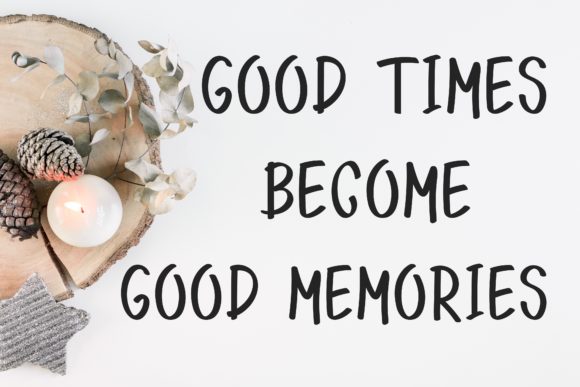
About Magic Winter Font
Magic Winter is a charming and versatile handwritten font that adds a touch of magic to any design project. With its lovely appearance, it can elevate a wide range of creative ideas and make them truly special. Here are some ways to use Magic Winter to create spectacular designs:
1. Holiday Greeting Cards: Design beautiful and heartfelt holiday greeting cards with Magic Winter to spread the joy of the season.
2. Wedding Invitations: Create romantic and elegant wedding invitations that capture the essence of love and celebration.
3. Quotes and Typography: Turn inspirational quotes and phrases into enchanting graphics with Magic Winter’s lovely handwritten style.
4. Social Media Graphics: Use Magic Winter to design eye-catching graphics for your social media posts, adding a touch of warmth and charm.
5. Blog Headers: Embrace the whimsical feel of Magic Winter for your blog headers and make your content stand out.
6. Personalized Gifts: Design personalized gifts, such as mugs, notebooks, or canvas prints, using Magic Winter’s unique lettering.
7. Children’s Book Illustrations: Bring children’s stories to life with charming illustrations featuring Magic Winter.
8. Art Prints: Create adorable art prints with Magic Winter’s lovely font to decorate nurseries, bedrooms, or living spaces.
9. Party Invitations: Craft magical and enchanting invitations for birthday parties or winter-themed events.
10. Product Packaging: Add a delightful touch to product packaging, making your products more appealing to customers.
11. Scrapbooking: Use Magic Winter to add a whimsical touch to your scrapbook layouts and preserve precious memories.
12. Logo Design: Create charming and memorable logos for businesses or brands that want to evoke a warm and welcoming vibe.
13. Stationery Design: Design elegant and personalized stationery sets using Magic Winter for a unique touch.
14. Book Covers: Design captivating book covers with Magic Winter, especially for genres like romance or fantasy.
15. Winter-themed Artwork: Capture the magic of winter with artwork featuring Magic Winter’s handwritten style.
16. Calendars: Create charming and artistic calendars for the new year, using Magic Winter for the dates and quotes.
17. Wedding Signage: Design beautiful and elegant wedding signage to guide guests using the charm of Magic Winter.
18. Gift Tags: Create adorable gift tags that add a personal touch to presents during the holiday season.
19. Restaurant Menus: Use Magic Winter to design cozy and inviting menus for restaurants, cafes, or bakeries.
20. Postcards: Design enchanting postcards with Magic Winter to send warm wishes to loved ones.
The versatility and charm of Magic Winter make it a perfect addition to any creative idea. Its lovely handwritten style will undoubtedly make your designs stand out and evoke a sense of warmth, enchantment, and wonder. Let Magic Winter work its magic, and watch your projects come to life with its delightful appeal!